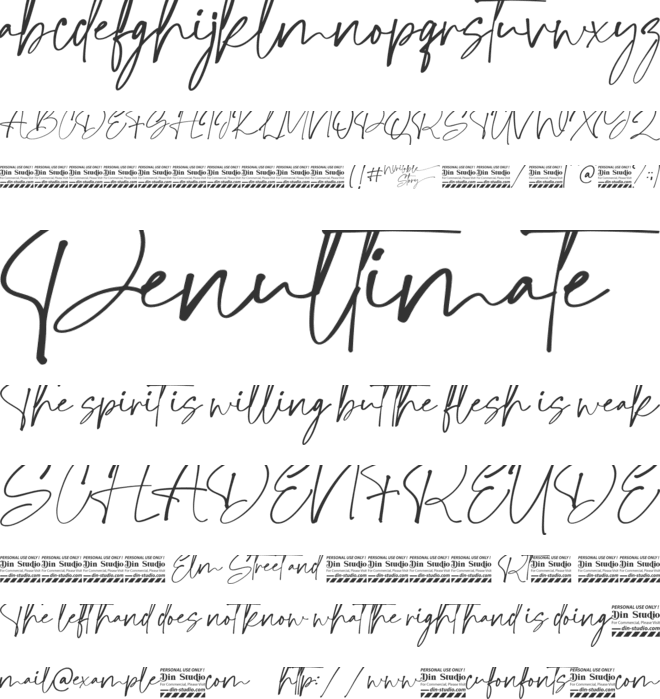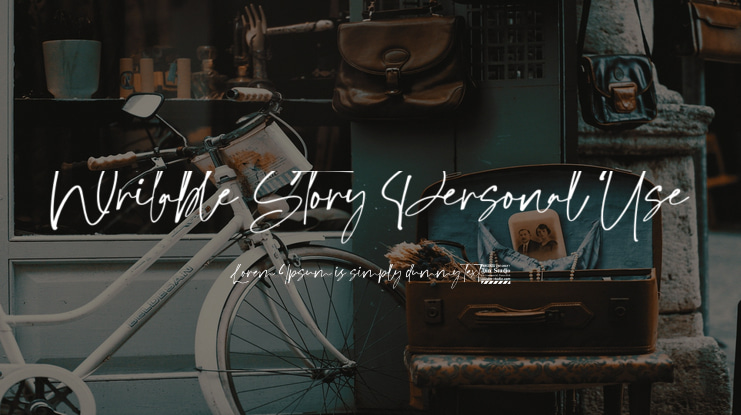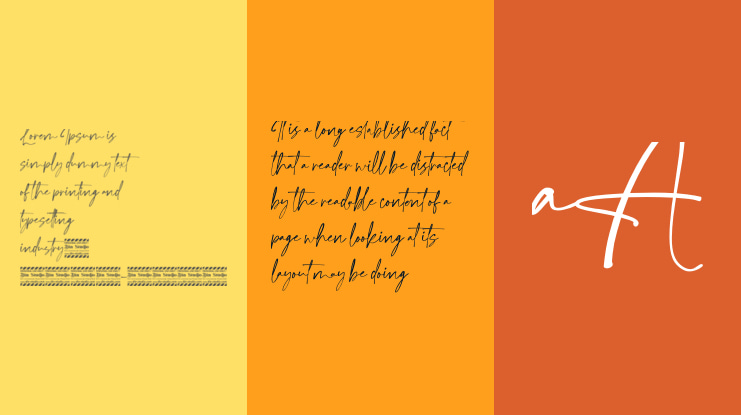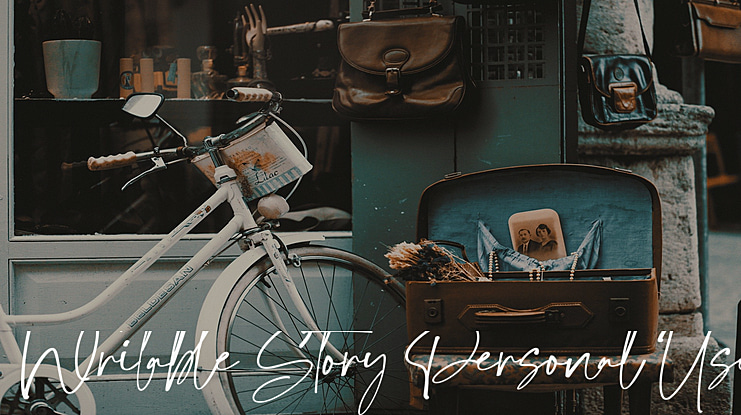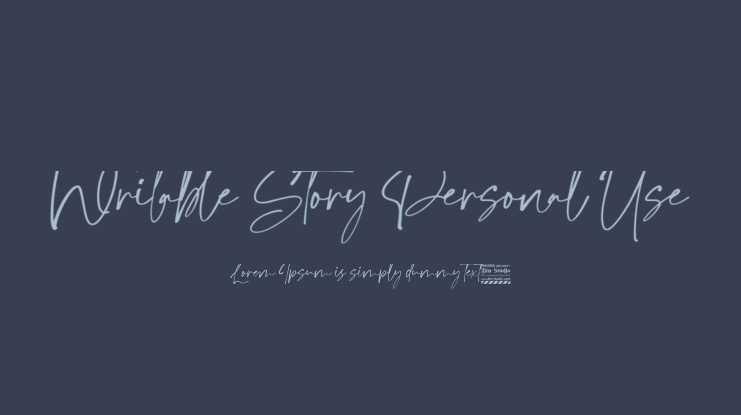
Writable Story-A Handwritten Font
A modern and stylish handcrafted calligraphy font that’ll make your audience swoon and enhance your branding. This font is more than just another handwritten font.